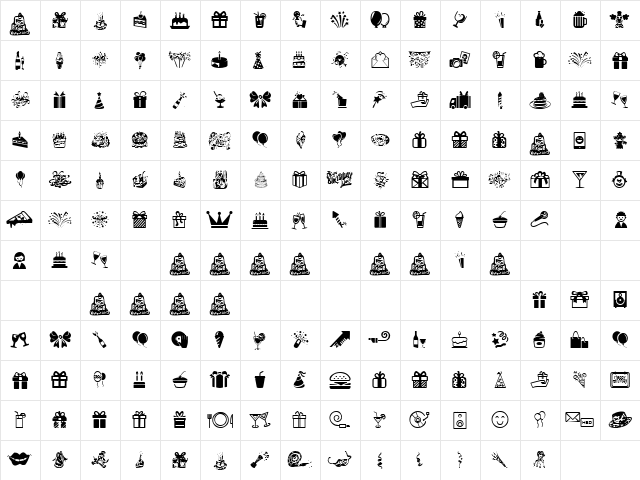
Happy Birthday Regular
Design Context for Happy Birthday Typeface
Happy Birthday is a composed and adaptable typeface that performs quietly and consistently across a wide range of design contexts.